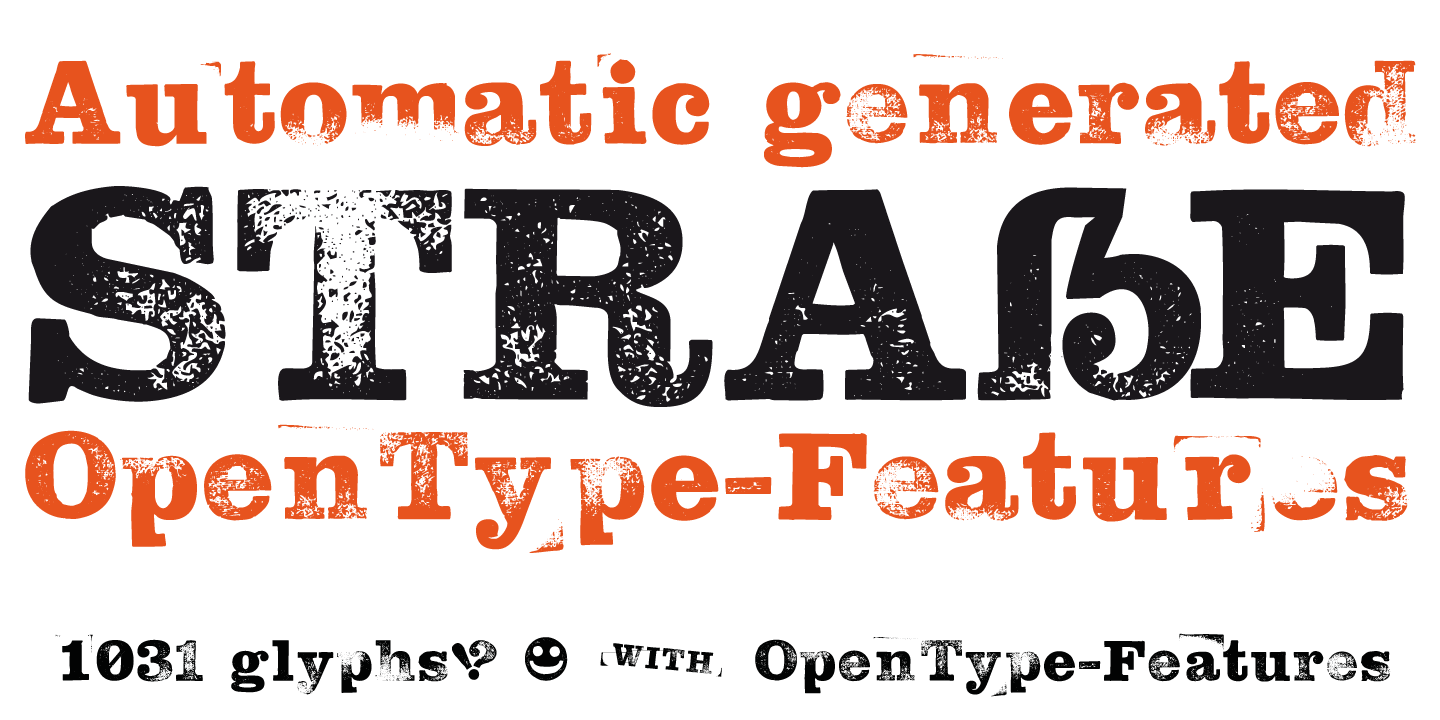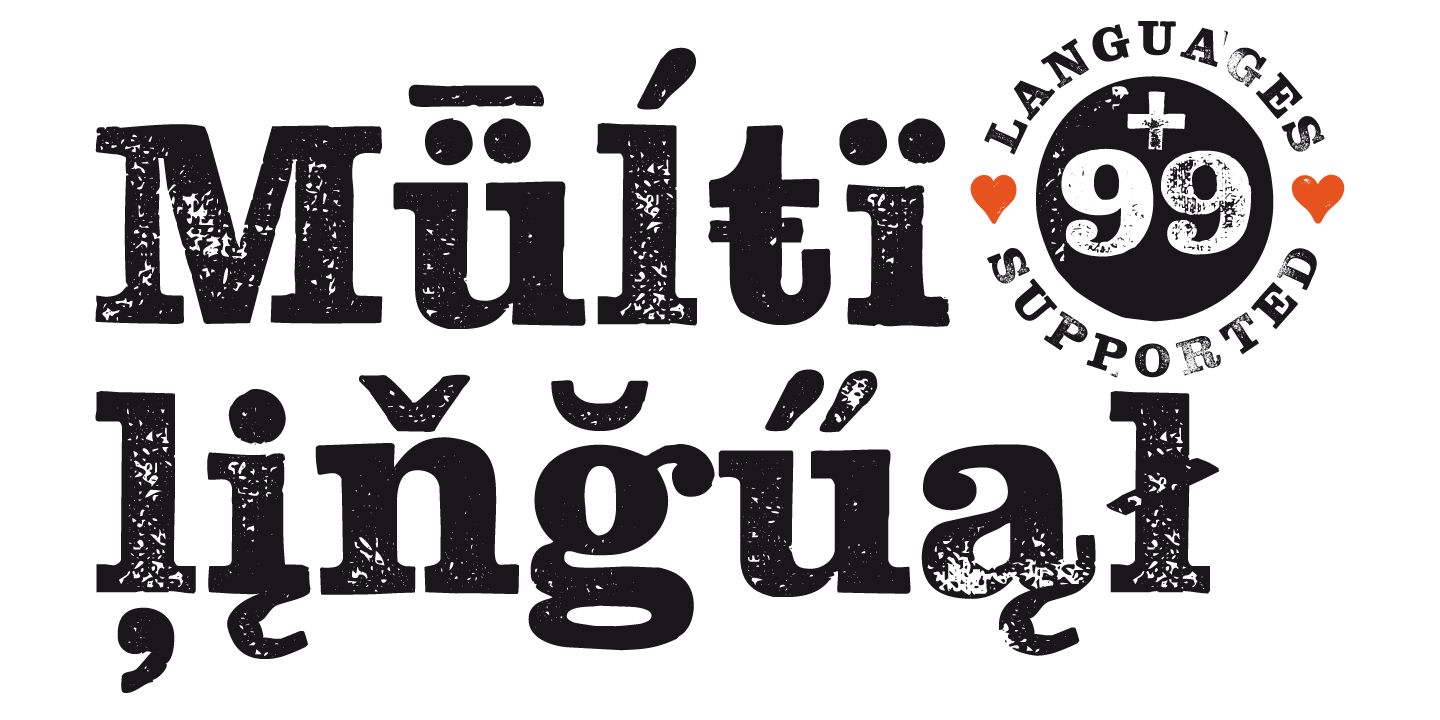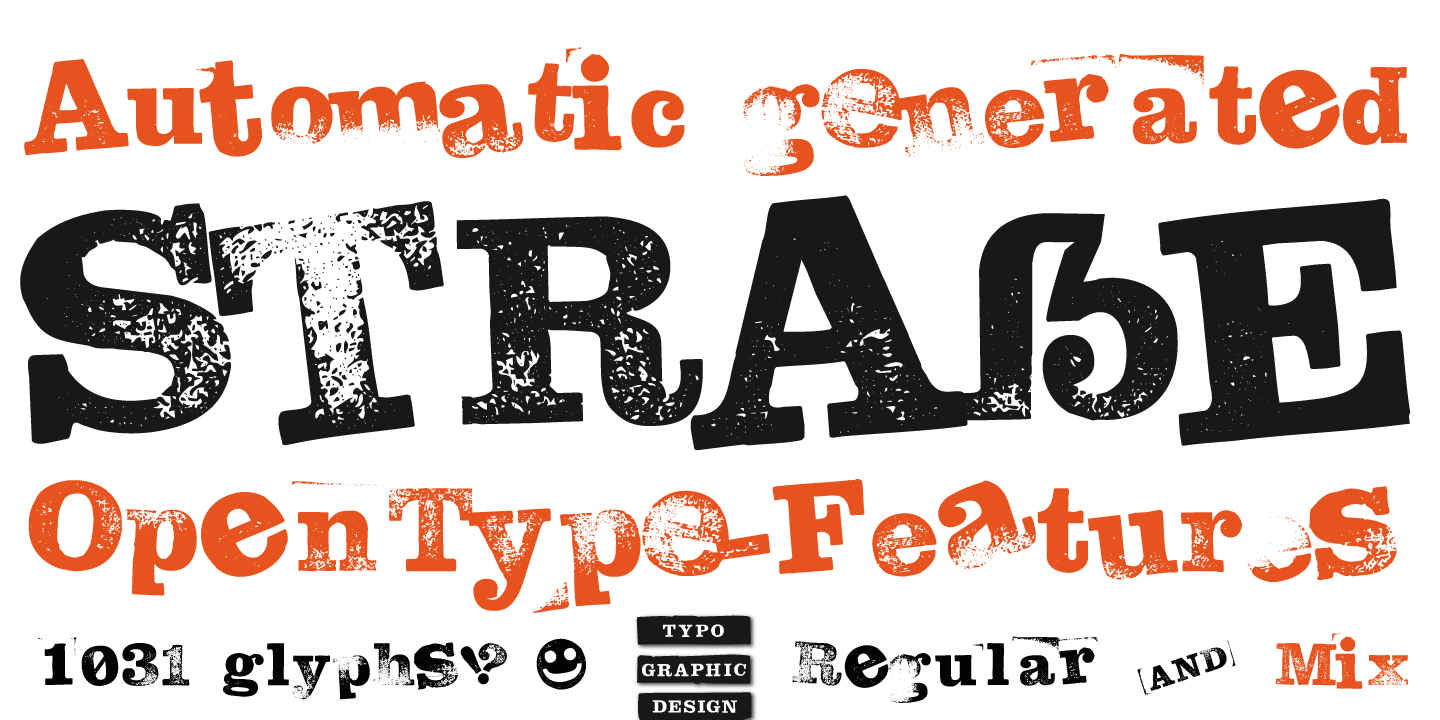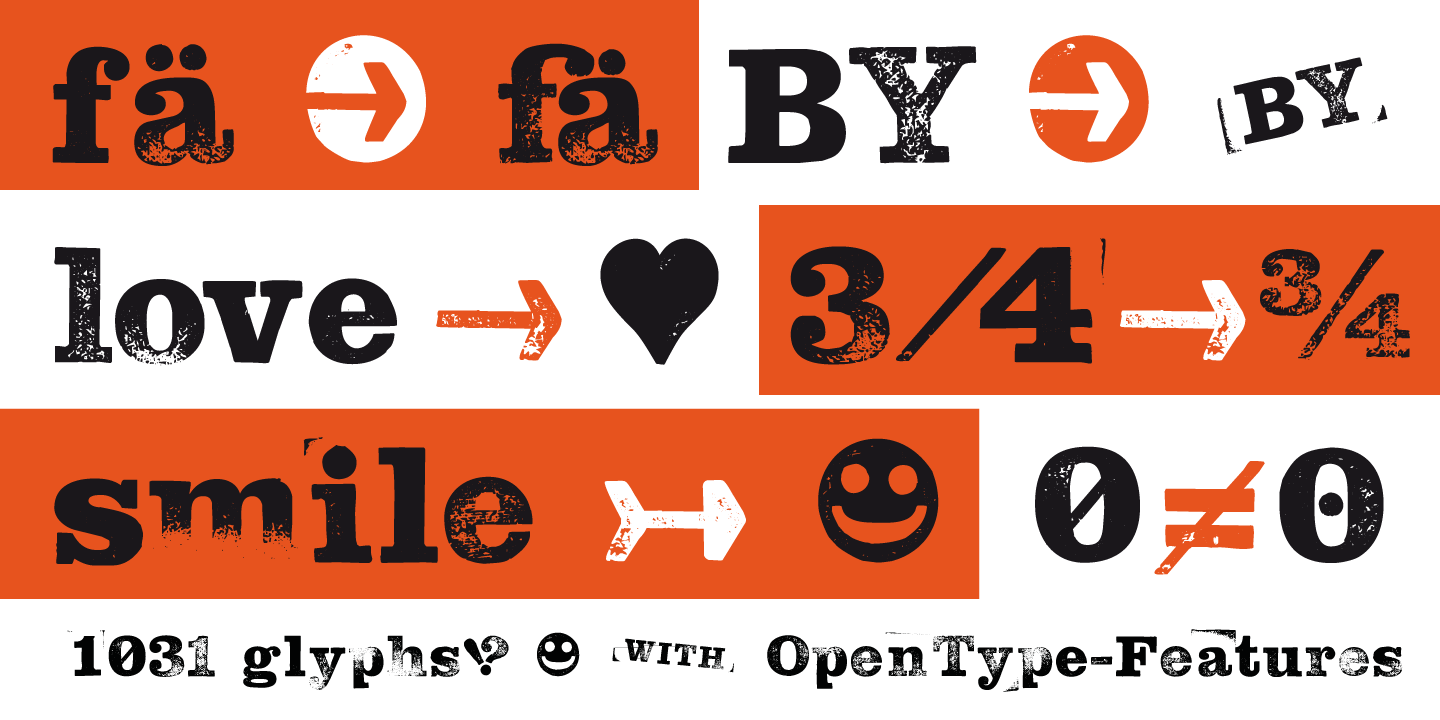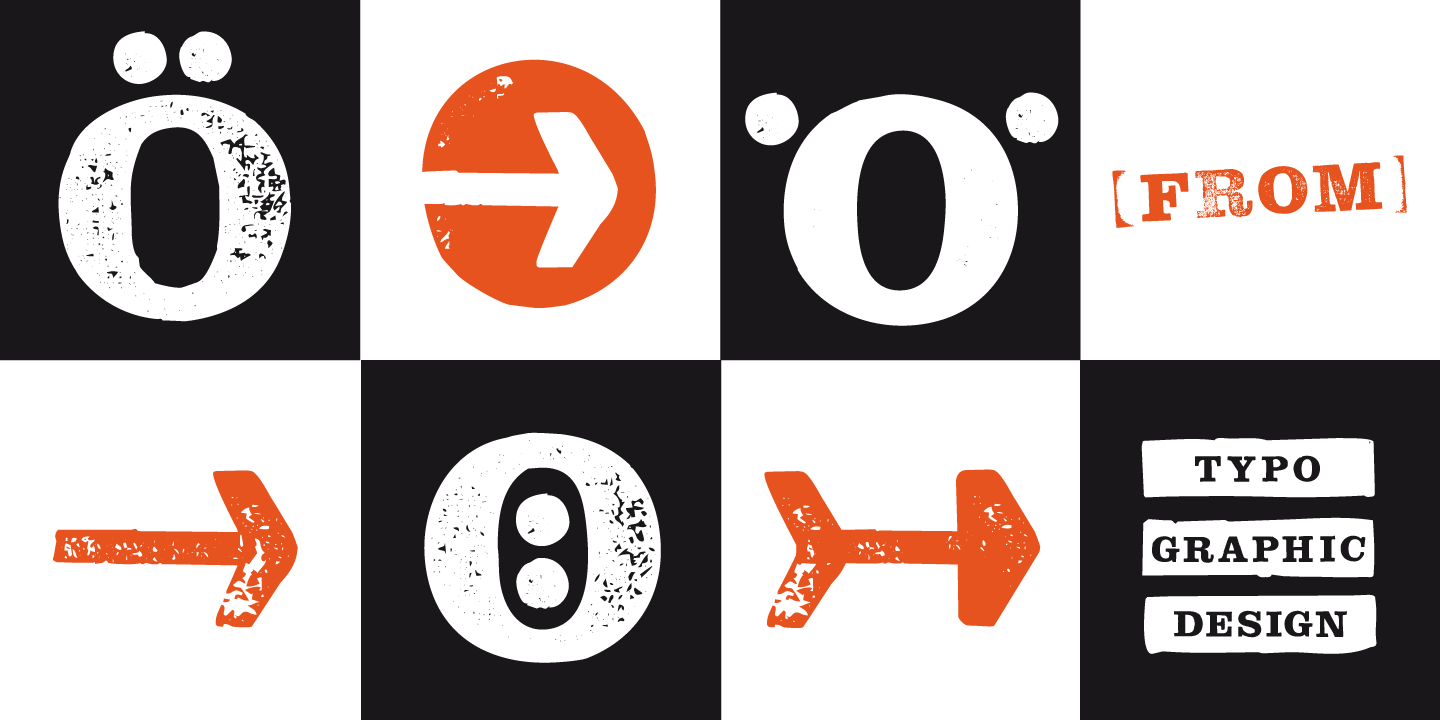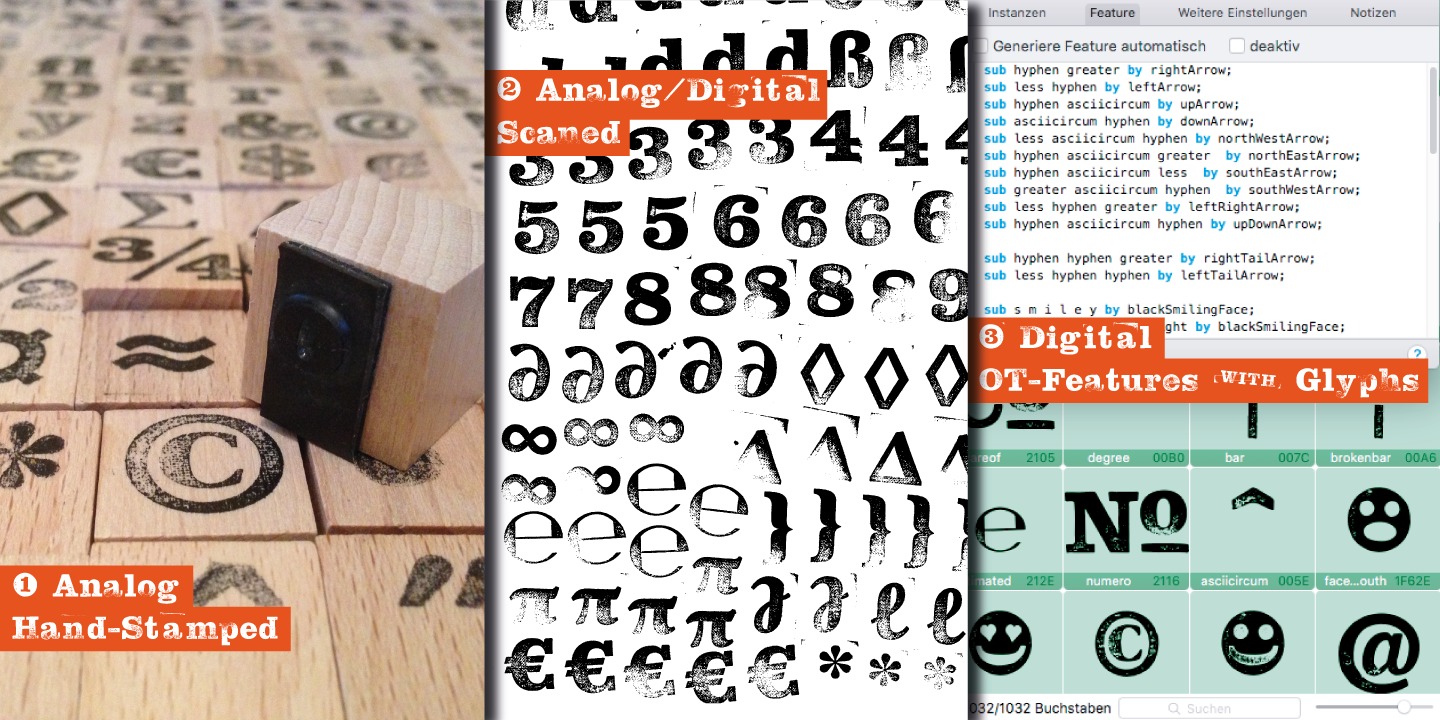
Introducing Hand Stamp Slab Serif Rough Regular Font: A Vintage-Inspired Display Font
In the world of typography, a well-designed font can elevate a design project from ordinary to extraordinary. For those seeking a unique and authentic look, the “Hand Stamp Slab Serif Rough” font is an excellent choice. Designed by Manuel Viergutz for the Typo Graphic Design font foundry in 2017, this display font is inspired by classic slab serifs and real rubber stamp letters, offering a rough, dirty, and stamped-by-hand appearance.
The Design Behind Hand Stamp Slab Serif Rough
The Hand Stamp Slab Serif Rough font is a carefully crafted typeface that draws inspiration from traditional rubber stamp letters. With its classic slab serifs and rough texture, this font provides a vintage look that is perfect for designers and crafters seeking to add a touch of nostalgia to their work. The font’s design is based on real rubber stamp letters, giving it an authentic, hand-stamped appearance that is sure to capture the attention of your audience.
Key Features of Hand Stamp Slab Serif Rough
So, what sets Hand Stamp Slab Serif Rough apart from other fonts? Here are some of its key features:
- State-of-the-art Open Type features: The font features contextual alternates that cycle automatically through 5 different letter variants for each character, creating a varied look that mimics the imperfections of hand-stamped letters.
- 1031 glyphs: The font includes a vast character set, with 5× A–Z, 0–9 & a–z, as well as 70+ decorative extras like arrows, dingbats, symbols, geometric shapes, catchwords, and alternative letters.
- Figure set options: The font offers a range of figure set options, including oldstyle figures and additional decorative ligatures.
- Versal Eszett (German Capital S): The font includes a Versal Eszett, also known as the German Capital S.
Perfect for Display Sizes and Decorative Headlines
Hand Stamp Slab Serif Rough is a display font designed specifically for use in larger sizes, making it perfect for:
- Logos: Add a touch of vintage charm to your brand’s logo.
- Magazines: Use the font to create eye-catching headlines and titles.
- Posters: Make a statement with bold, decorative text.
- Advertisements: Grab attention with a unique and authentic font.
- Webfont for decorative headlines: Elevate your website’s design with a distinctive font.
Tips for Using Hand Stamp Slab Serif Rough
To get the most out of Hand Stamp Slab Serif Rough, here are some tips:
- Experiment with different sizes: The font is designed for display sizes, but it can also be used in smaller sizes for added texture and interest.
- Mix and match with other fonts: Combine Hand Stamp Slab Serif Rough with other fonts to create a unique and visually appealing design.
- Take advantage of Open Type features: Use the font’s contextual alternates and ligatures to create a varied and dynamic look.
Hand Stamp Slab Serif Rough Regular Font is a versatile and eye-catching display font that is perfect for designers and crafters seeking a vintage-inspired look. With its unique blend of classic slab serifs and real rubber stamp letters, this font is sure to add a touch of authenticity and charm to any design project. Whether you’re creating a logo, magazine headline, or decorative website headline, Hand Stamp Slab Serif Rough is an excellent choice.